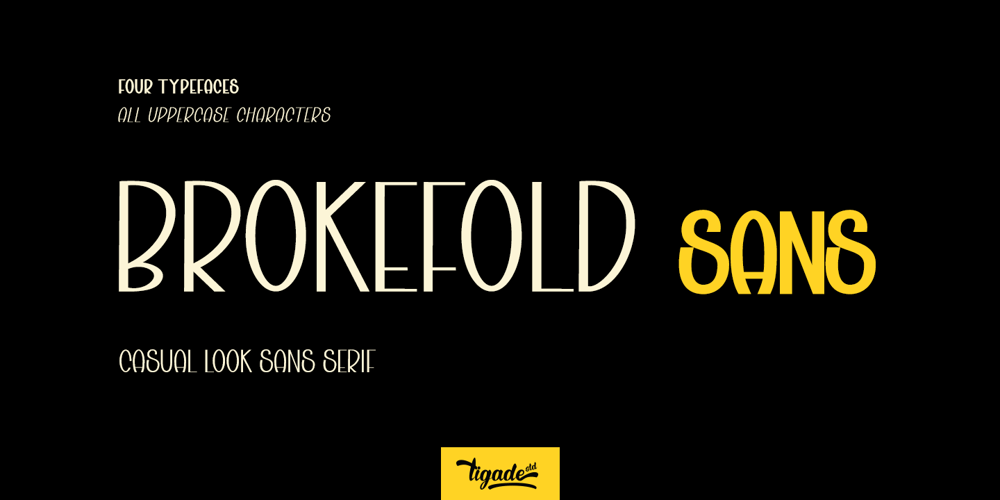
Brokefold Sans Font Family was designed by Doli Harahap and published by Tigade Std. Brokefold Sans contains 4 styles and family package options. Brokefold Sans, is a Sans Serif font with combination of rounded and strong edges. It’s suited to cover various of tasks such as editorial to brand design, advertising, magazine layout and many more.Brokefold consists with plenty OpenType features to ease your tasks. Brokefold comes with all uppercase shapes. However, it comes with complete characters as well as international characters.Features:- Standard Characters (Uppercase)- Numerals- Punctuations- International CharactersDisclaimer:Clips arts shown in the posters/images are not included. It is for promotional purpose.Enjoy designing and stay Safe!Tigadestd